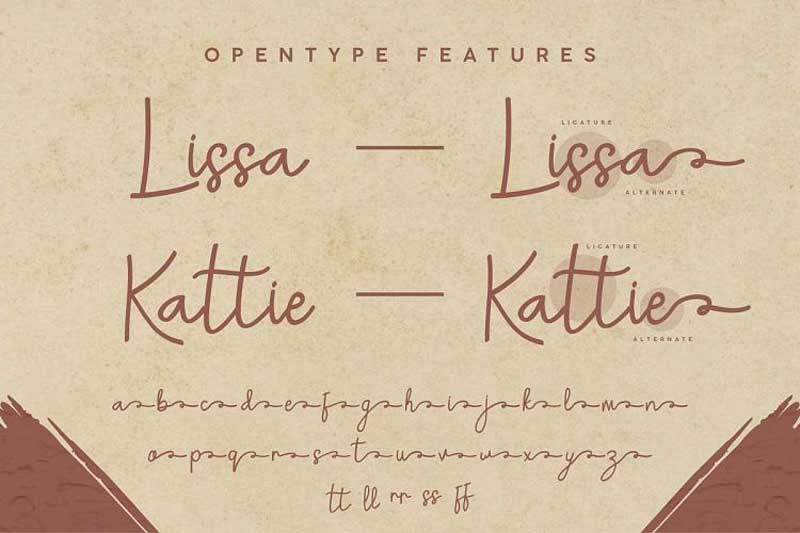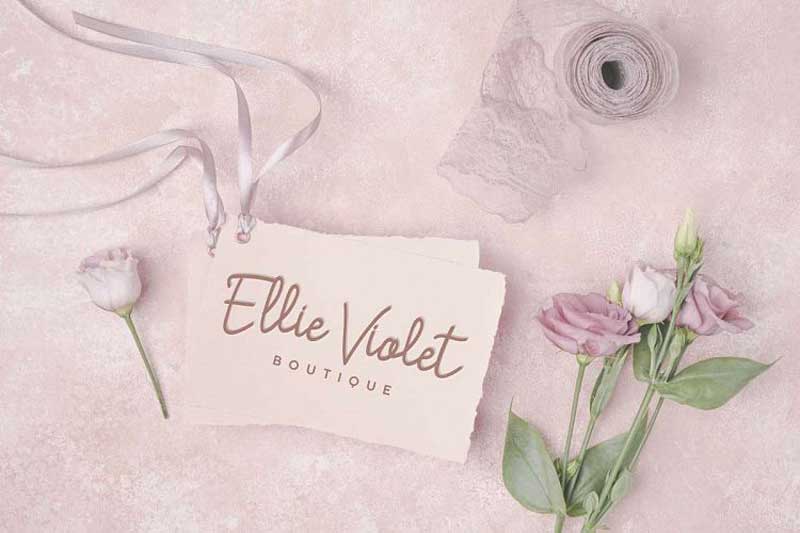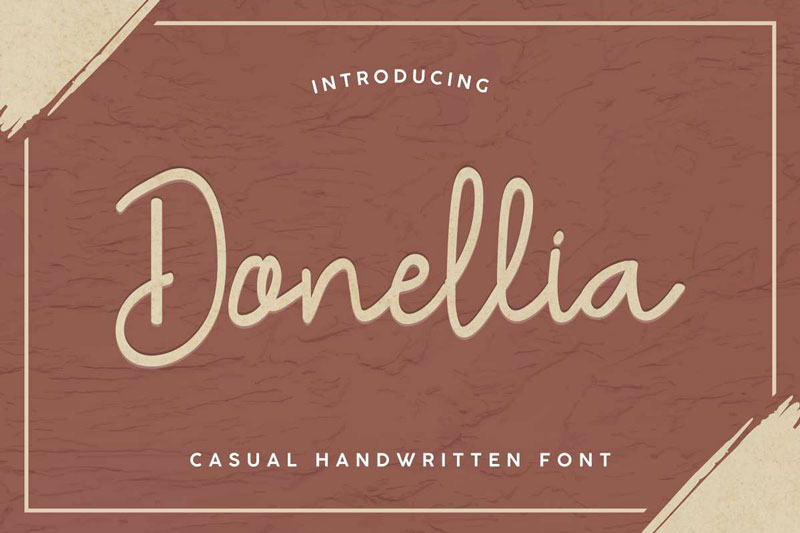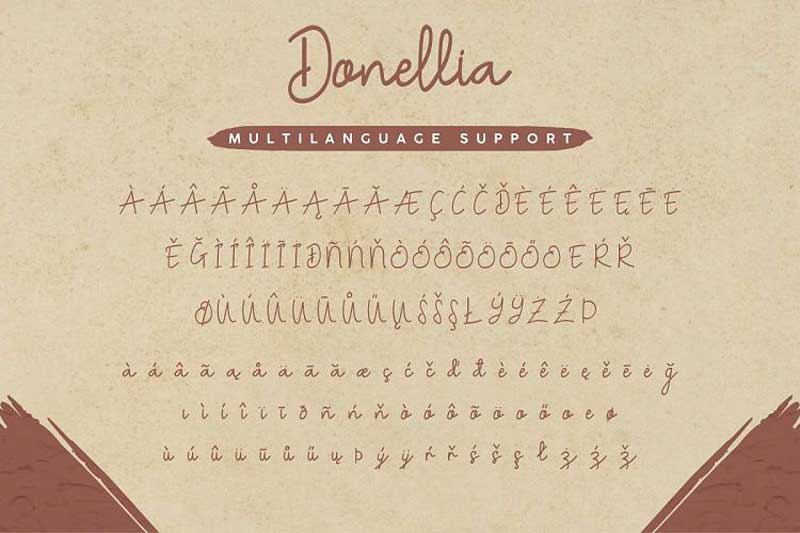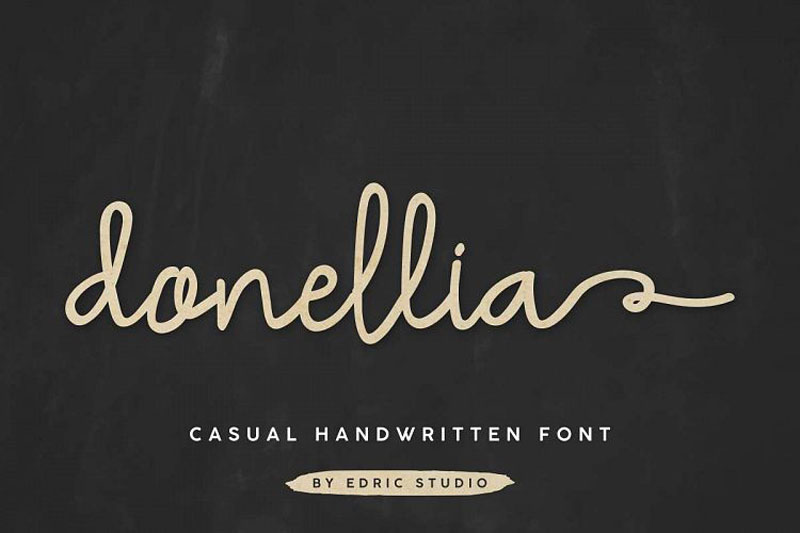
Donellia Script Font 519203
Donellia Handwriting Font is an exclusive signature handwriting script font with elegant style. The typeface has a stunning character set, perfectly kerned and spaced. The style character of this font is elegant, stylish, sophisticated and classic pen writing lines.Donella Handwriting Font will be great for any projects including branding, logo, stationery, business card, signage, flyer, brochure, etc. Almost all industries will be matched for this typeface: wedding, events, real estate, architect, law firm, florist, gardening, makeup artist, travel, hotel, musician, etc Heres what you’ll get on the zip pack :